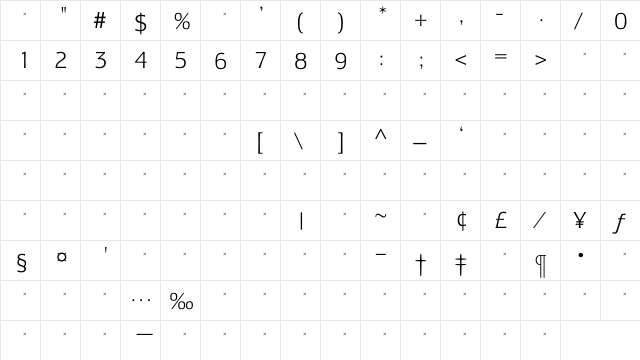
LesmoreLightTab Regular
Design Context for LesmoreLightTab Typeface
LesmoreLightTab takes a measured approach to typography — its balanced proportions and neutral character make it a reliable workhorse for both digital and print work. Its slender proportions lend an understated elegance to any composition.
Pro Tip: Use LesmoreLightTab in both headline and body roles to test its range before committing to a single application.